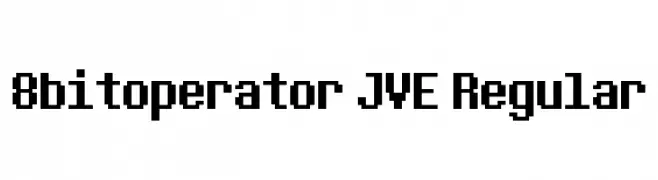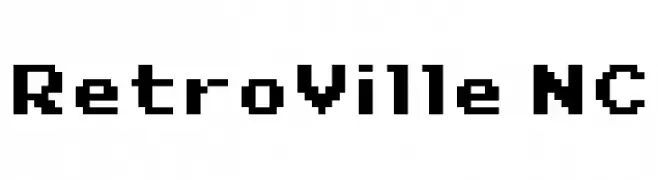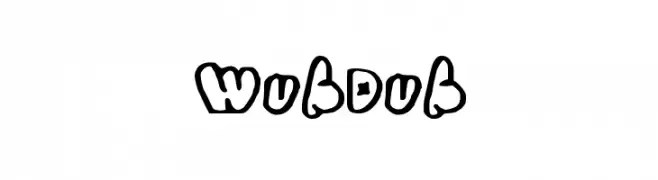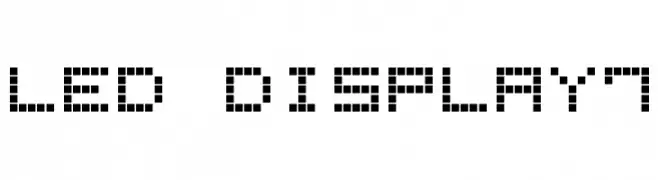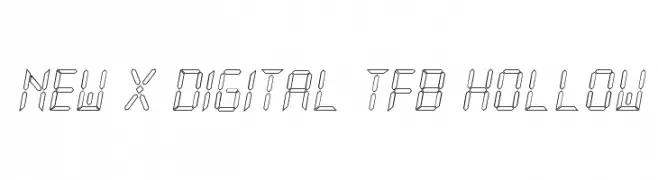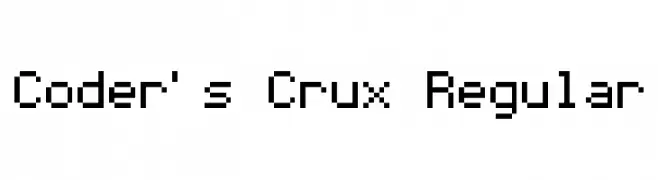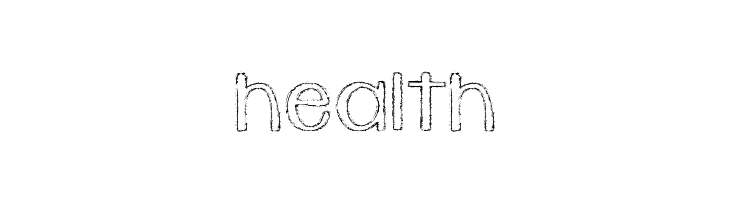
A modern, geometric font with thin strokes and a minimalist design.
A pixelated, retro font inspired by early digital graphics.
A pixelated, retro-style font with a blocky, geometric design.
A playful, handwritten font with rounded edges and an informal style.
A pixelated, retro-style font with a blocky, geometric design.
A dot matrix style font inspired by classic LED displays, offering a retro digital aesthetic.
A futuristic, hollow, segmented font inspired by digital displays.
A pixelated, monospaced font with a retro digital aesthetic.
A playful, outlined font with rounded, smooth characters and a whimsical style.